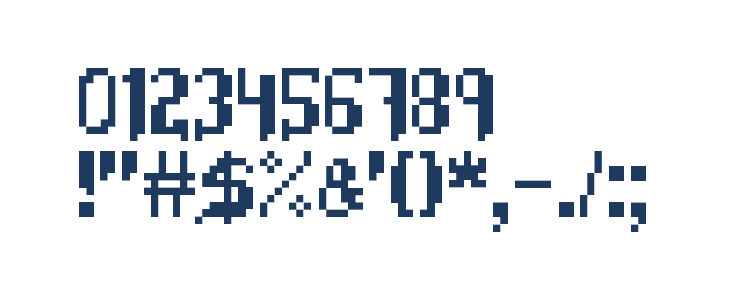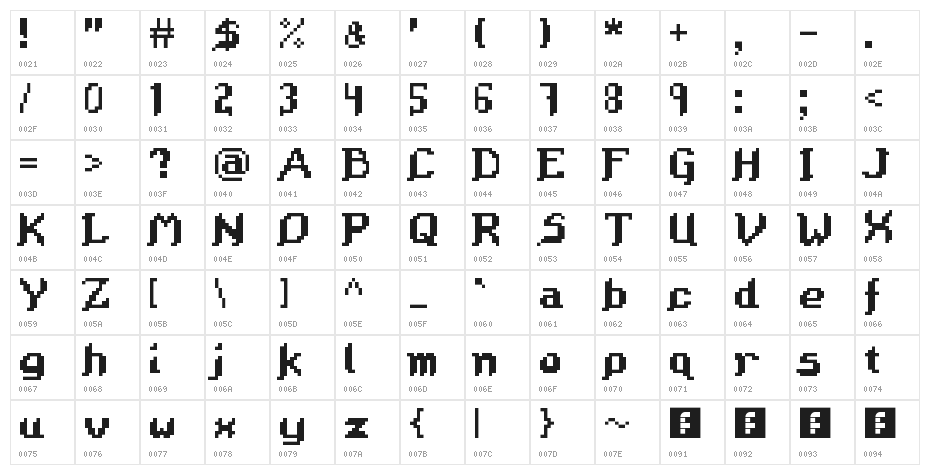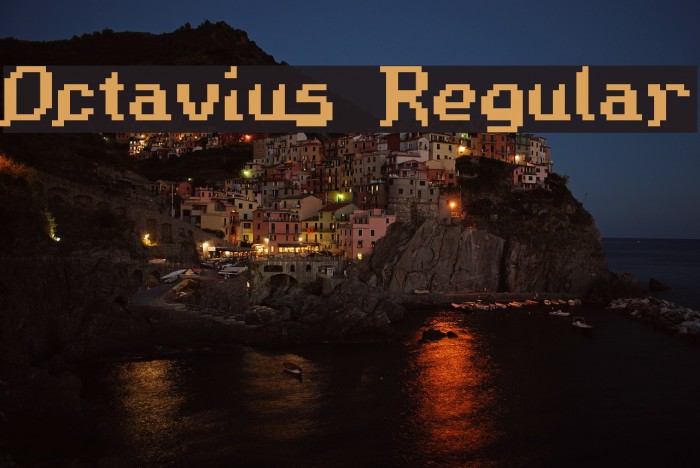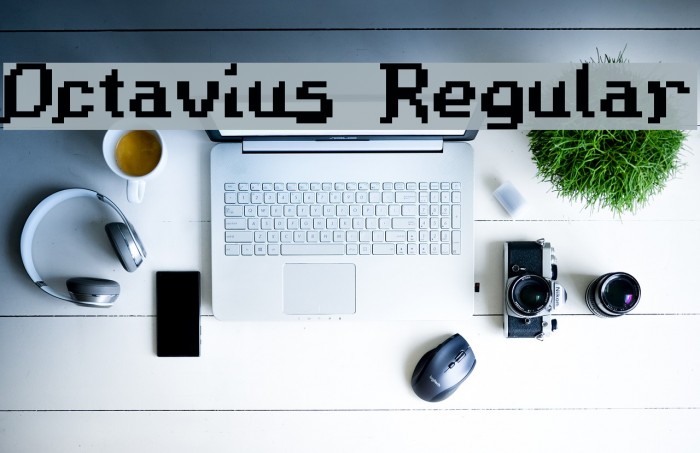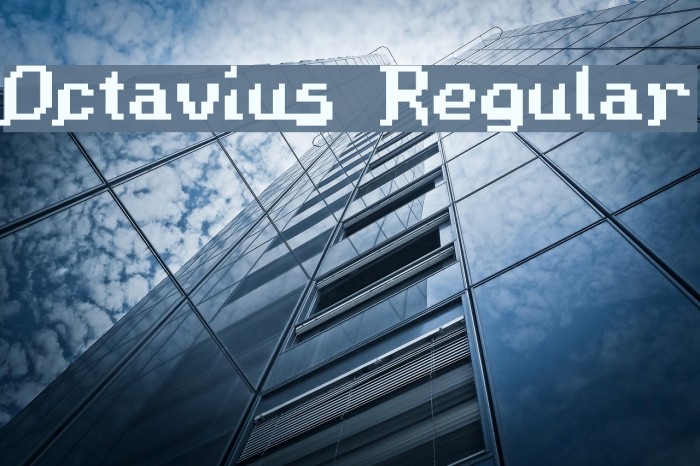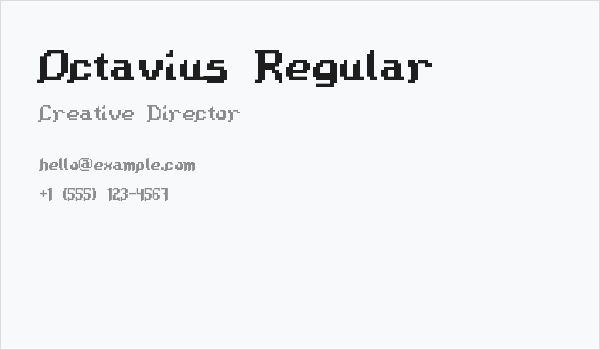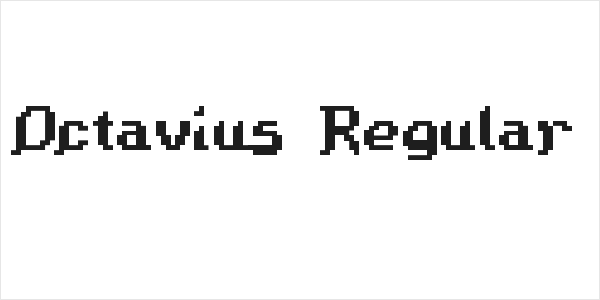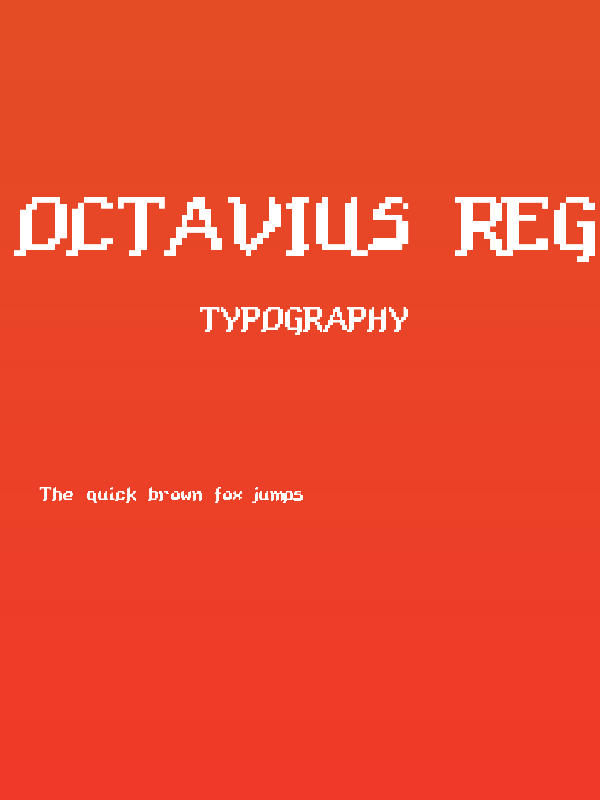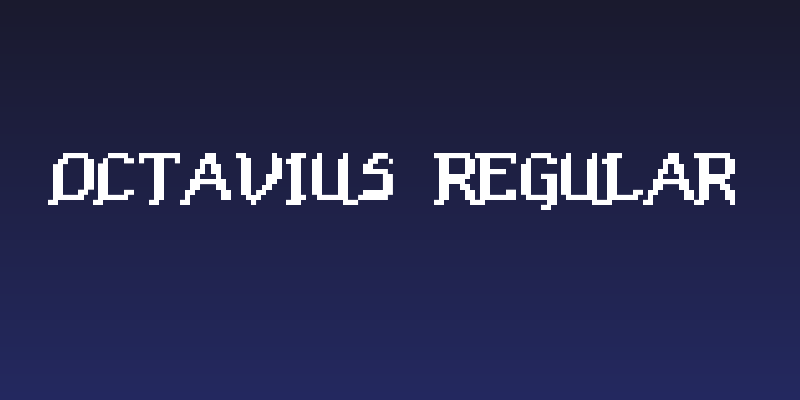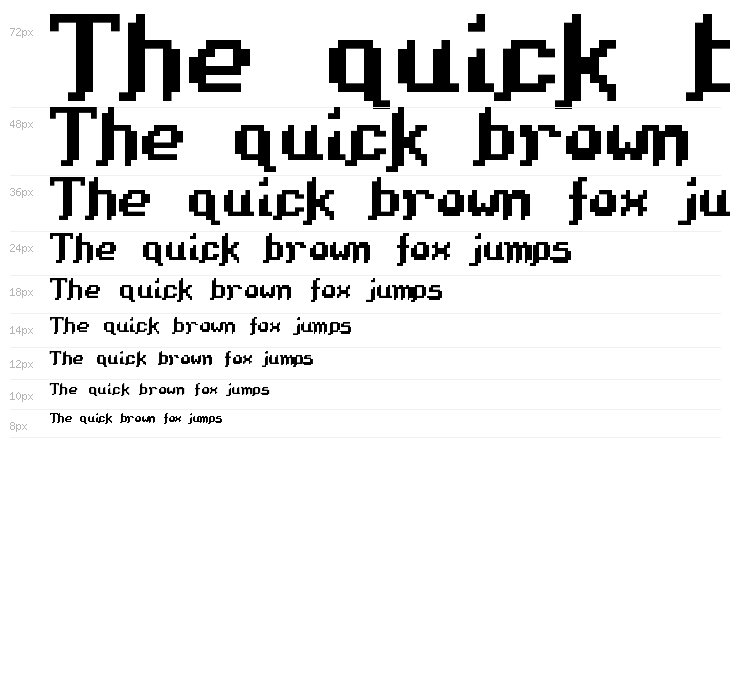
Octavius Regular Font
Octavius Regular Description
This font features a bold, pixelated style reminiscent of early digital and arcade aesthetics. The characters are constructed with a blocky, grid-like structure, giving it a retro, nostalgic feel. Each letter and number is distinct, with sharp edges and consistent stroke widths, making it highly legible even at smaller sizes. The uppercase and lowercase letters maintain a uniform height, contributing to its cohesive appearance. Special characters and numbers follow the same geometric pattern, ensuring visual harmony across all glyphs. This font's unique style makes it stand out, capturing the essence of vintage digital displays.
| Proposed Projects | Ideal for video game graphics, retro-themed designs, digital art projects, and tech-related branding. |